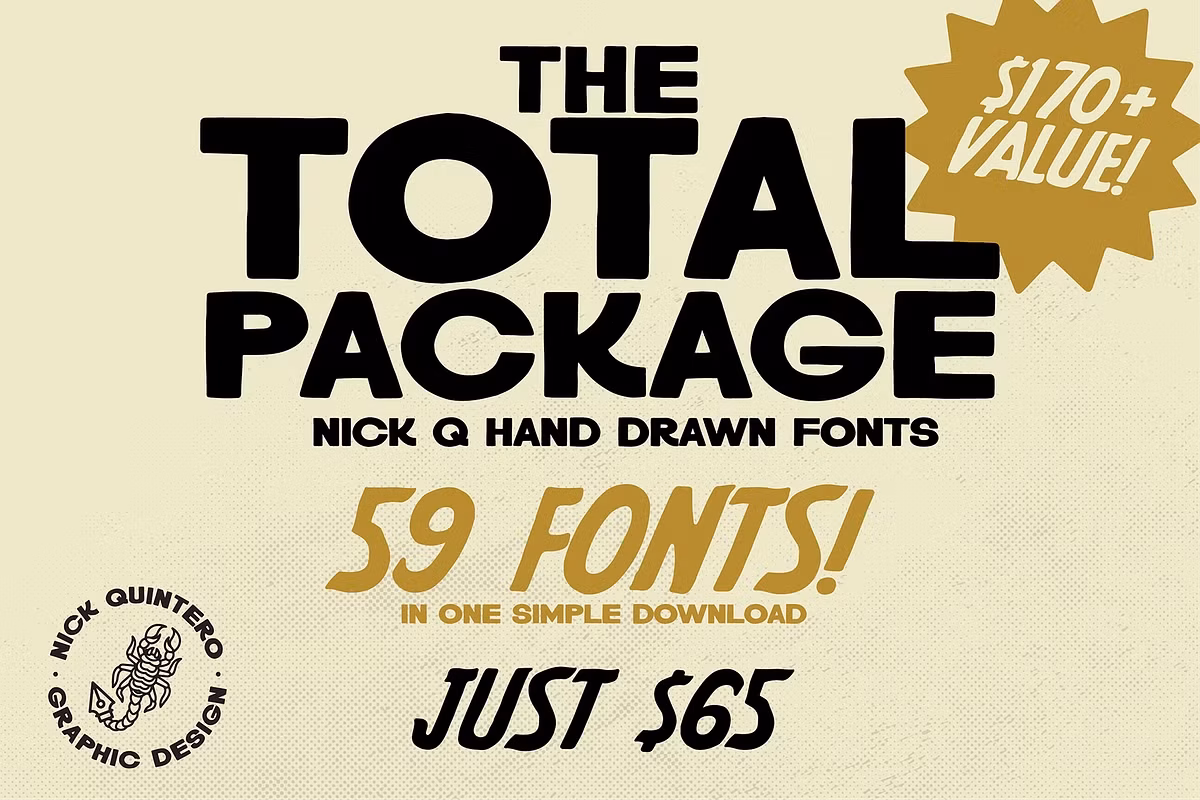
Total Package All NickQ Fonts Free Download is a complete set of versatile and stylish fonts, perfect for a variety of creative projects. With a range of unique styles, from bold and modern to elegant and sophisticated, this collection offers the ideal typefaces for branding, logos, social media graphics, websites, and more.
The NickQ Fonts offer flexibility and creativity, making them suitable for both print and digital design. Whether you're creating professional branding or a personal project, this bundle has everything you need to elevate your typography with a wide variety of choices.